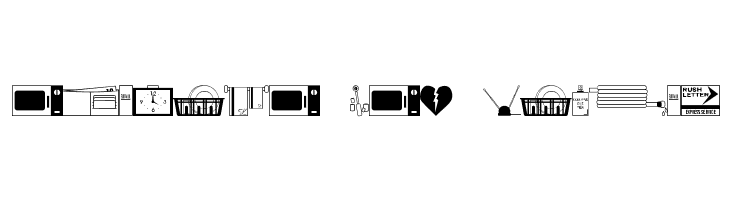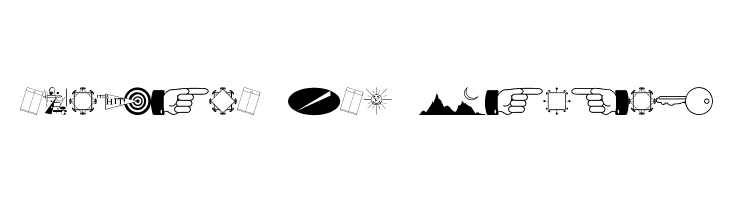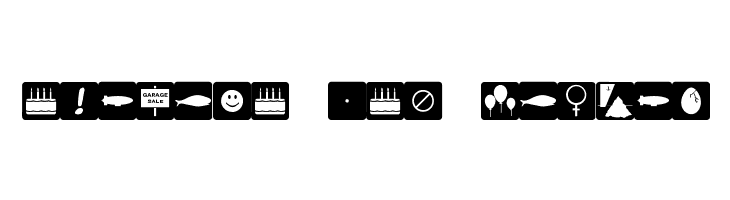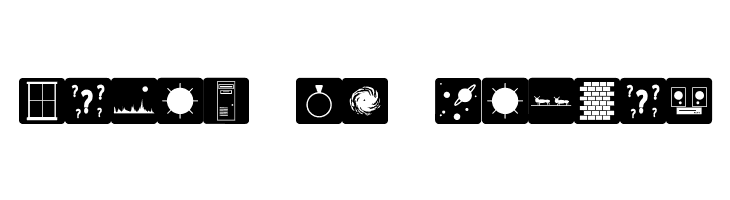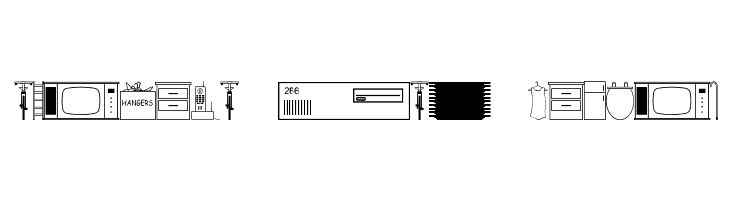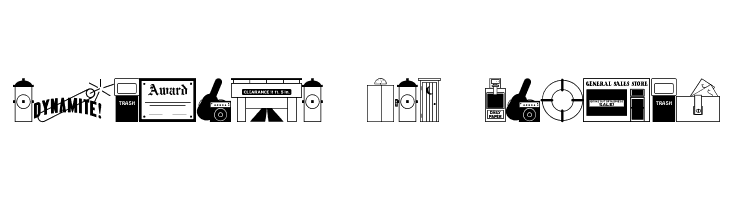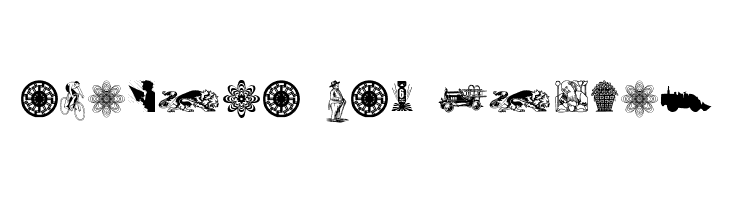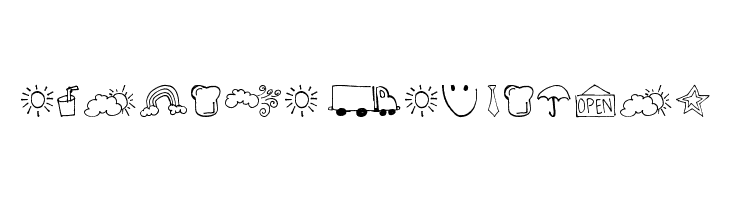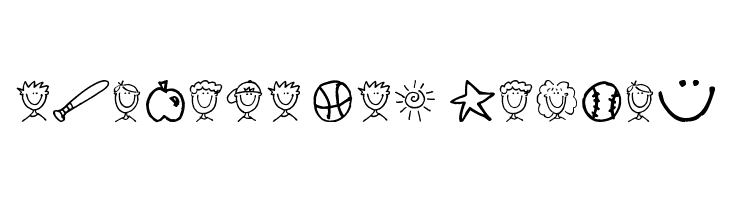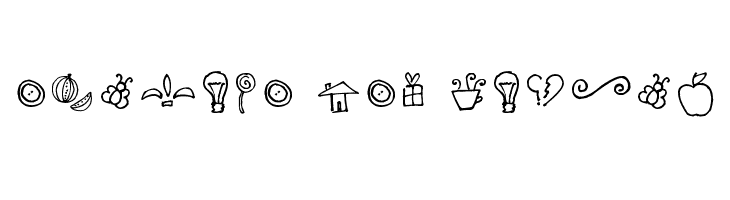
A playful dingbat font with quirky, illustrative symbols.
A diverse set of illustrated dingbats with a playful and retro vibe.
A playful symbolic font with bold, easily recognizable icons in a monochrome style.
A playful set of bold, high-contrast symbols ideal for creative projects.
A whimsical decorative font made from thrift store item illustrations.
A collection of bold, graphic dingbat icons depicting urban and industrial elements.
A playful collection of hand-drawn doodles with a whimsical and casual style.
A playful and whimsical set of hand-drawn doodles with bold outlines.
Hand-drawn doodle icons with a whimsical, informal style.